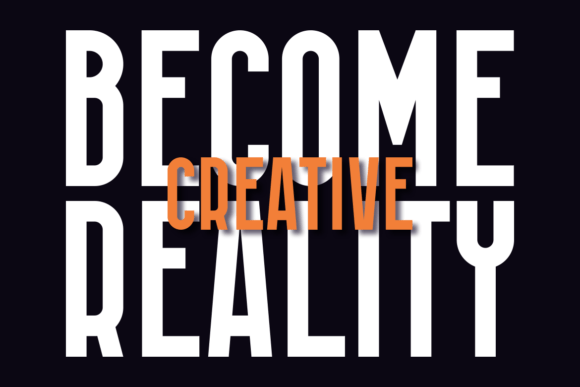
Hursy Font
Introducing our new product **HURSY – Condensed Font**
**HURSY – Condensed Font** – Modern Font is a bold and authentic display font. The font is suitable for any branding project like logo, template design, esport, and many more. outstanding in a wide range of contexts.